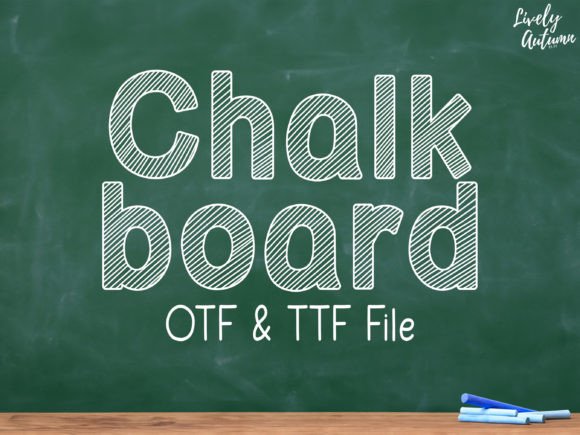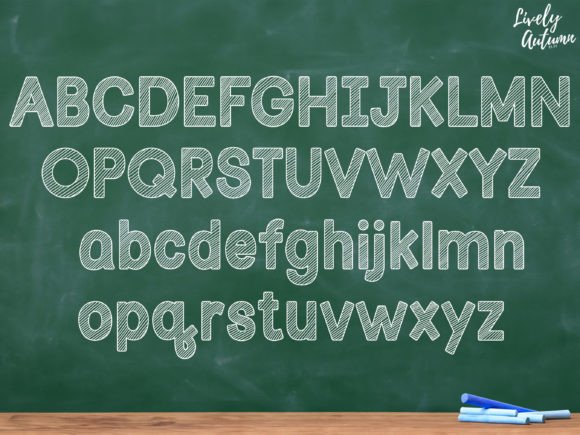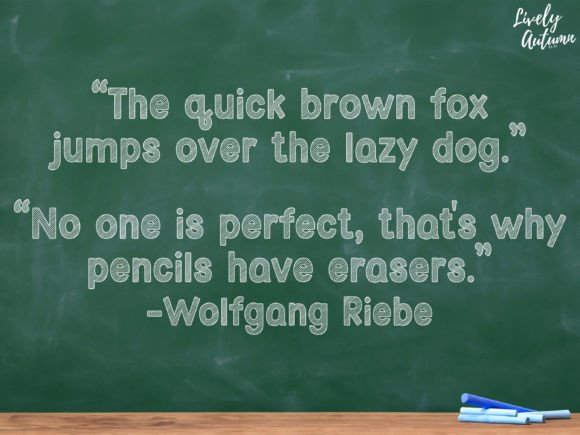
Chalkboard Font
Chalkboard Font is a display font with sketch lines inside each letter. Perfect for your school theme project, personal projects and various projects. From invitations to posters, social media graphics, journals, and much more.